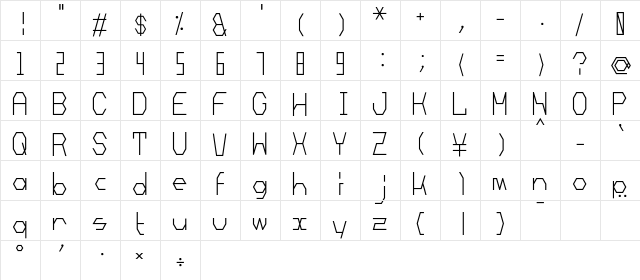
Mechanoarc Regular
Design Context for Mechanoarc Typeface
Mechanoarc offers clean, dependable letterforms without strong stylistic allegiance, making it a practical choice for designers who need flexibility.